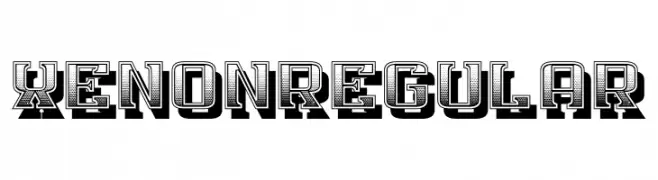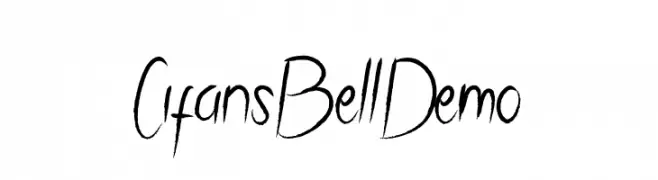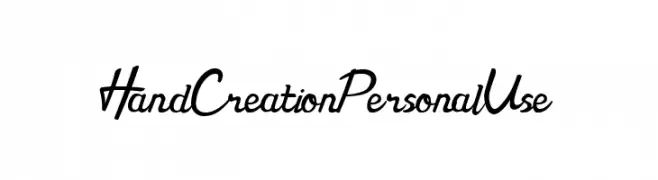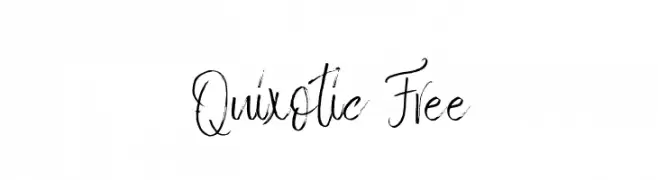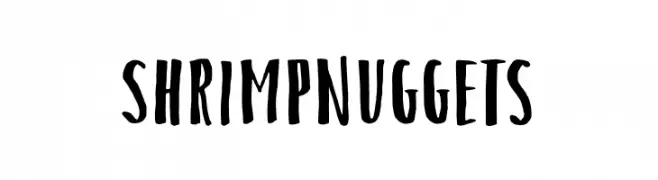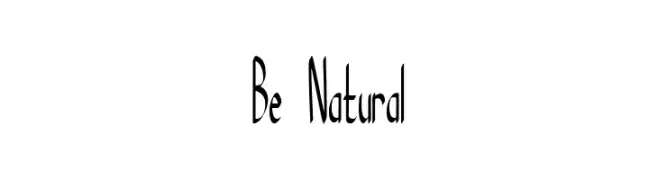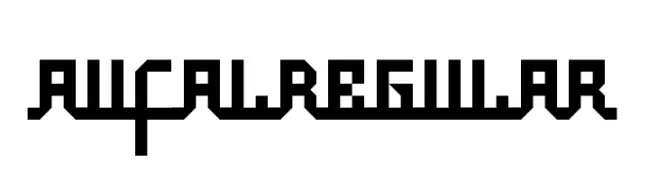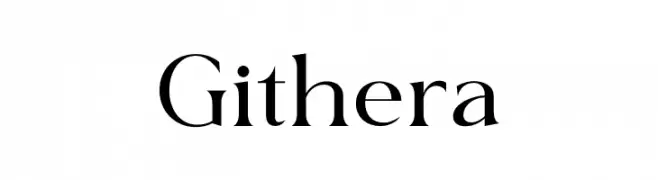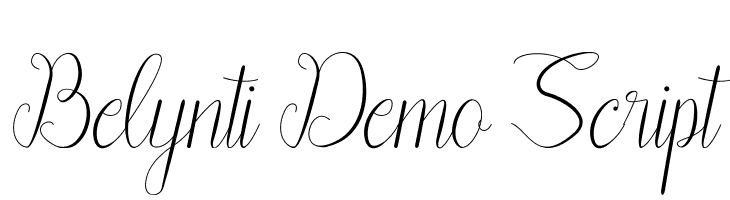
A bold, decorative font with a three-dimensional, textured appearance.
A dynamic, handwritten font with an expressive and artistic style.
A dynamic, flowing script font with elegant cursive letterforms.
A whimsical, hand-drawn script font with fluid and artistic strokes.
A playful, bold handwritten font with dynamic strokes and a casual vibe.
A playful, hand-drawn font with tall, narrow letterforms and an organic feel.
A playful and elegant script font with flowing, connected letterforms.
A bold, geometric font with a modern, futuristic design.
A futuristic, hollow font with geometric and angular design elements.
A classic serif font with high contrast and sharp serifs, exuding elegance and readability.